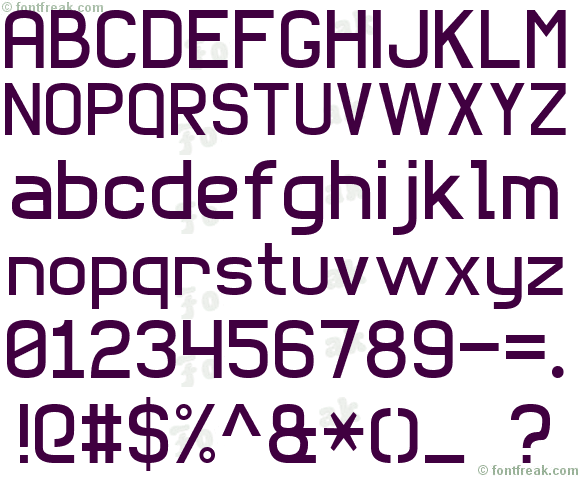
Basic Sans Serif 7
Basic Sans Serif 7 by Style-7 is a striking sans-serif typeface designed to meet the needs of modern graphic design. With its clean lines and minimalistic approach, this font captures the essence of contemporary aesthetics while remaining versatile across various applications. The stroke weight is balanced, offering a uniform appearance that enhances readability. The absence of decorative elements makes it an ideal choice for designs that prioritize clarity and simplicity, while its slightly rounded edges add a touch of softness to the overall look.
This font is particularly well-suited for a range of use cases. It can elevate the visual appeal of corporate branding materials, ensuring that logos and business cards convey professionalism. Additionally, Basic Sans Serif 7 works brilliantly for website headings and user interfaces, providing a seamless experience for digital content. Its straightforward design is also perfect for promotional flyers and brochures, where the emphasis is on delivering information clearly. Furthermore, this font can be effectively used in product packaging, attracting consumers with its modern and sophisticated vibe.